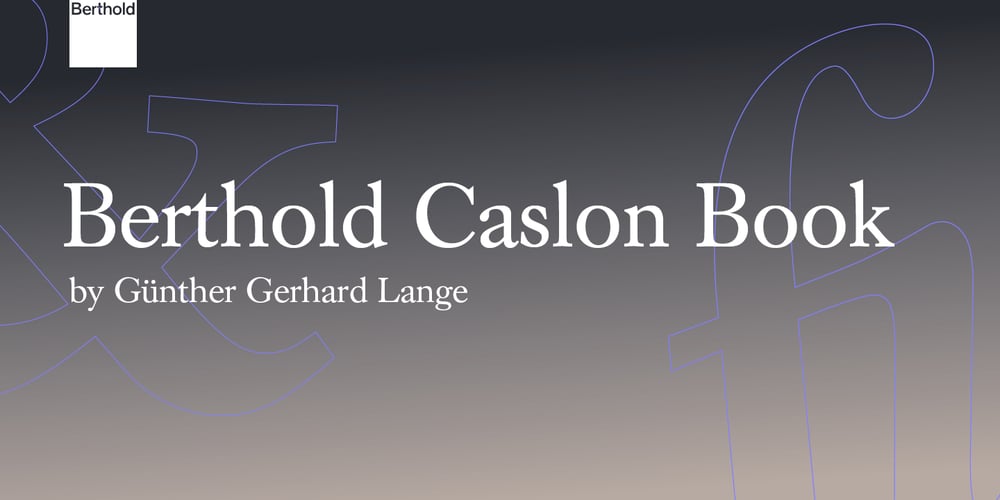
Berthold Caslon Book Font Family was designed by Günter Gerhard Lange and published by Berthold. Berthold Caslon Book contains 4 styles and family package options. Prior to designing Berthold Caslon Book, Günter Gerhard Lange intensively researched both the English type founder William Caslon’s 1725 types, and the Dutch forerunners of the 17th century upon which Caslon based his work. H. Berthold released Berthold Caslon Book in 1977. Berthold’s Caslon is a popular choice for large bodies of text and also for display work.